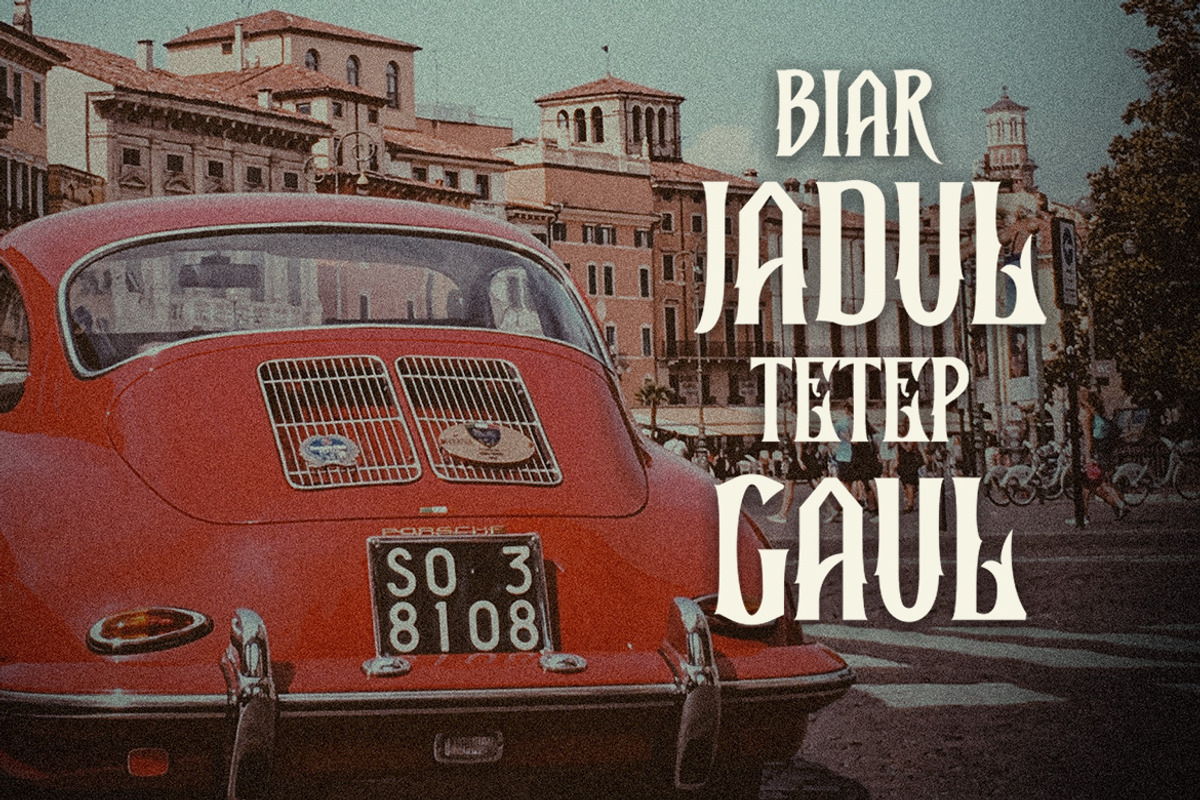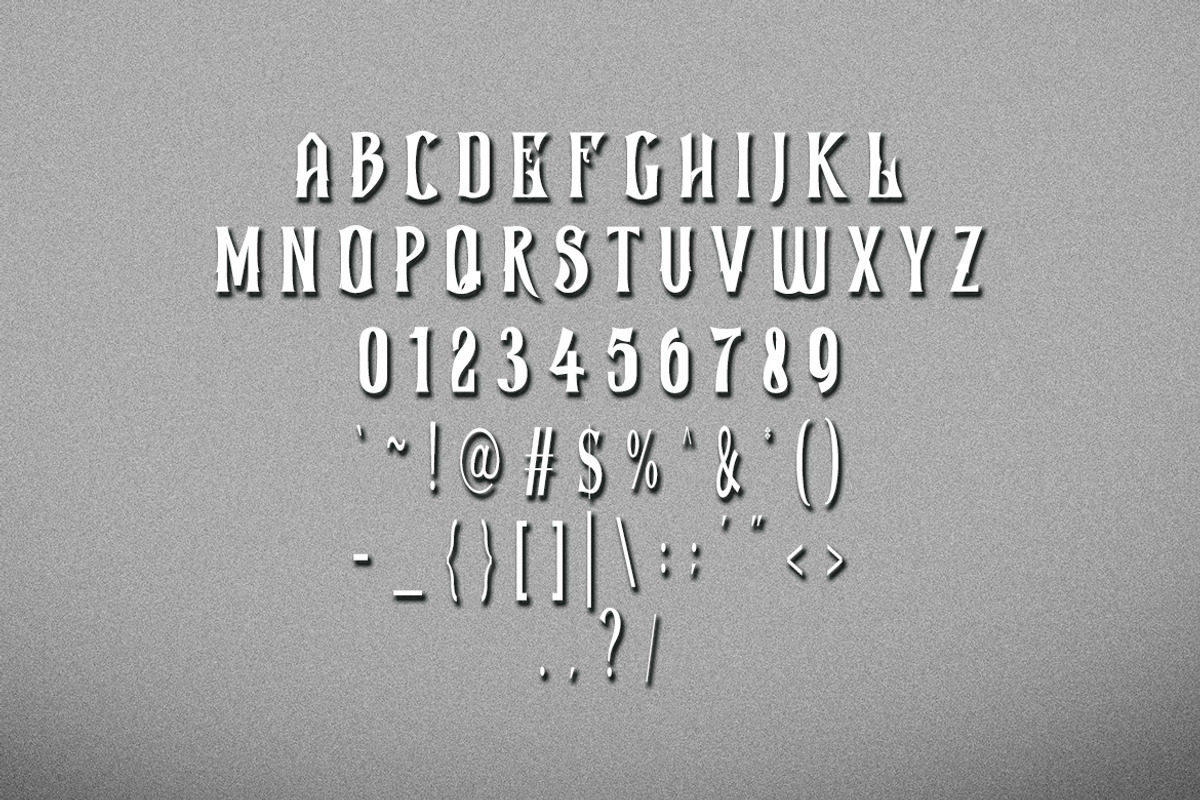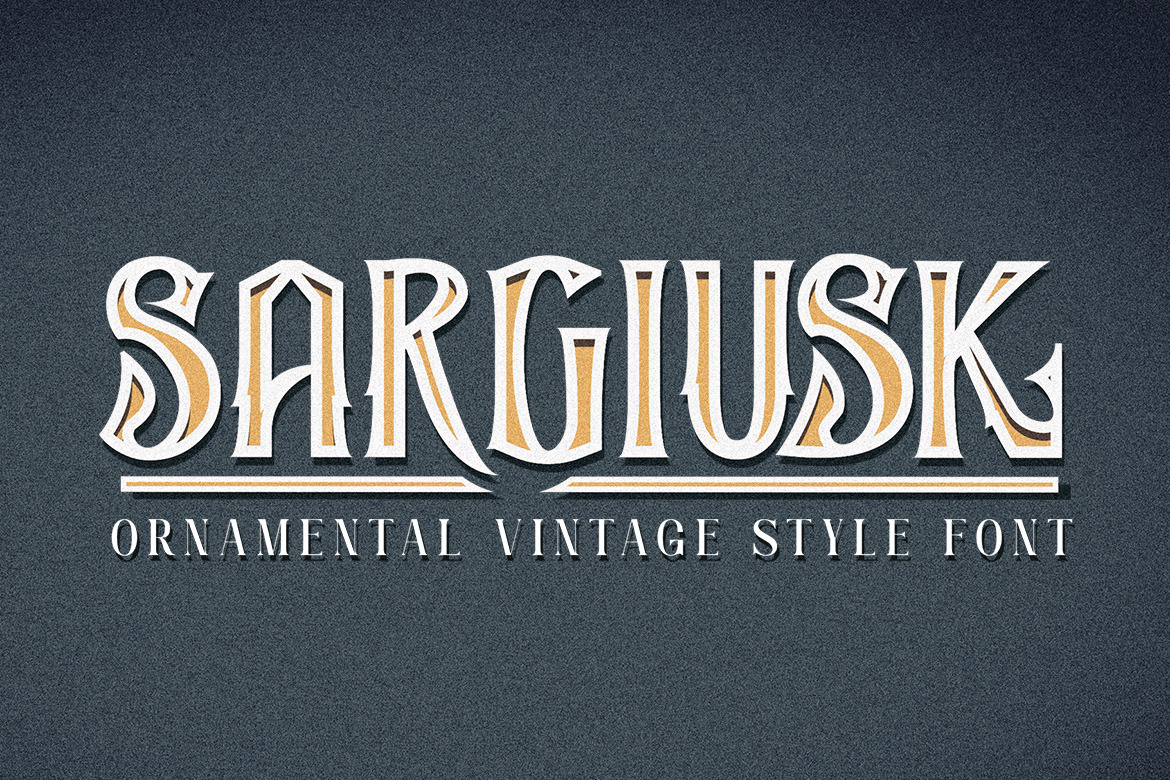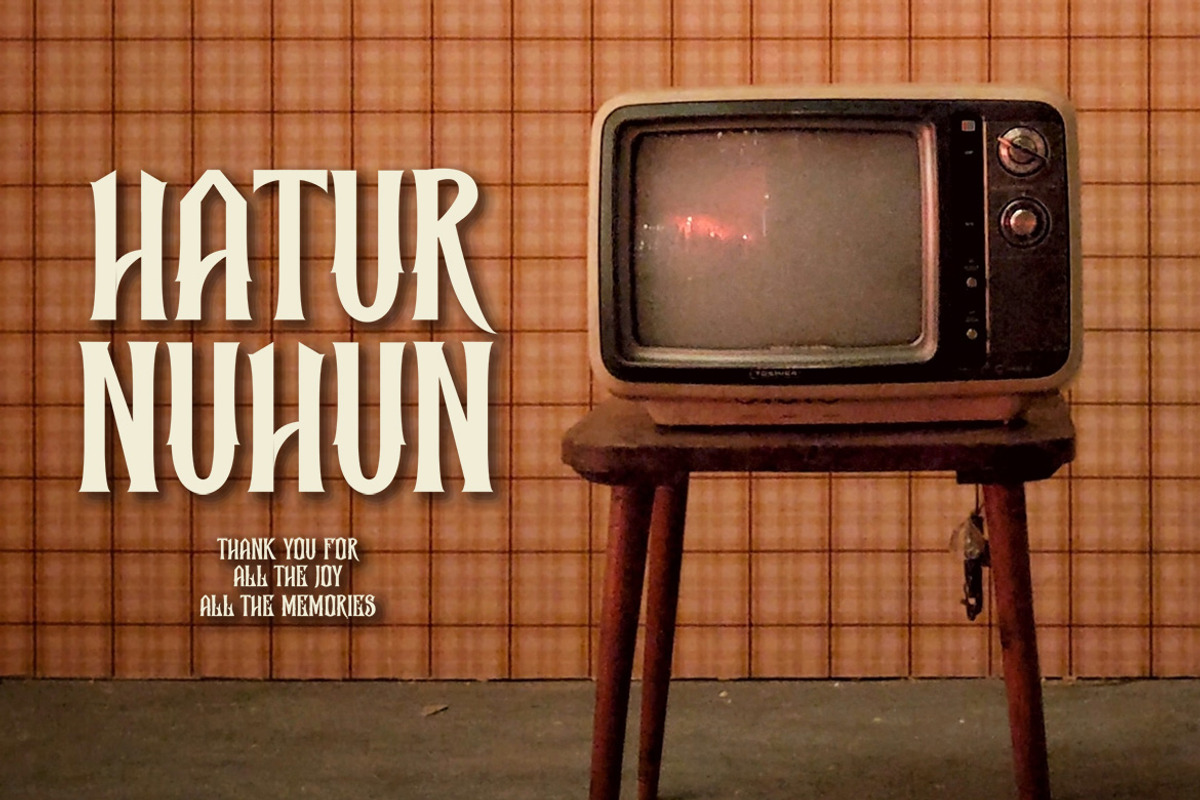
Sargiusk - Vintage Font
Introducing Sargiusk, a vintage style font. So perfect for you who needs a typeface for logo designs, magazine, social media, brochure, and many more.